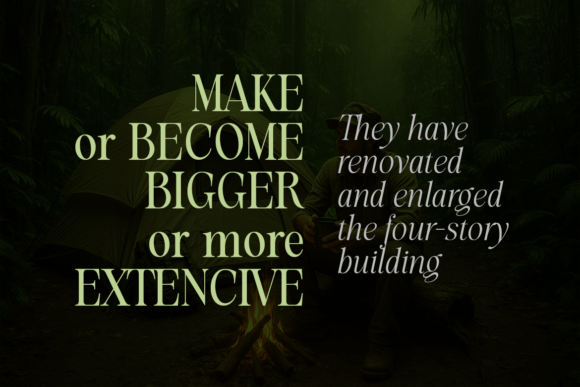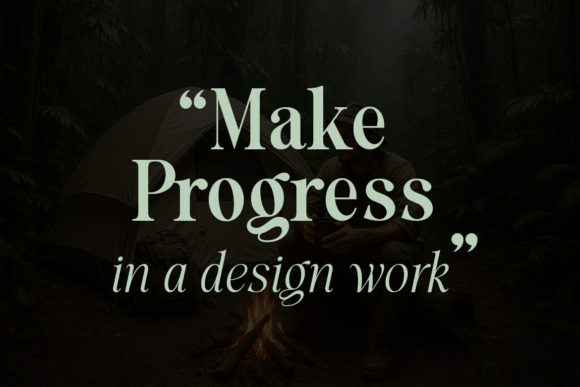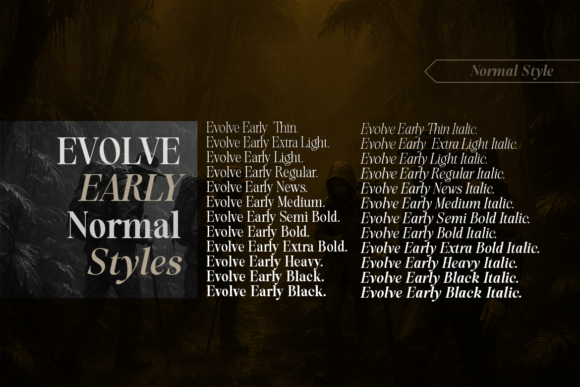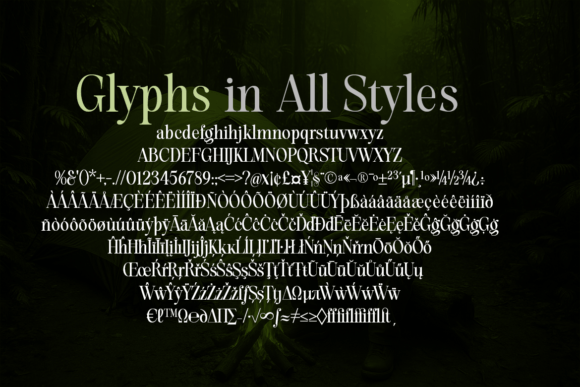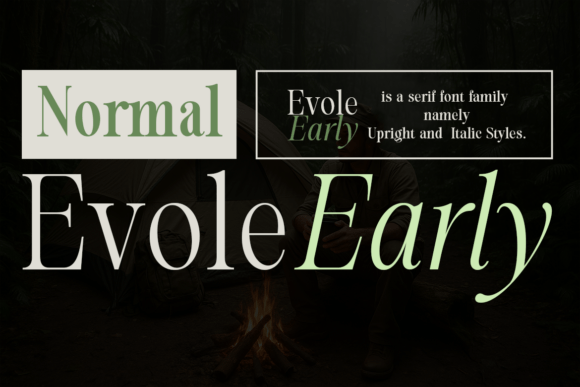
Evolve Early Normal Font: The Perfect Balance of Familiarity and Uniqueness
In the world of typography, finding the perfect font that balances familiarity and uniqueness can be a daunting task. However, with Evolve Early Normal, designers can rest assured that they have found a versatile and elegant font that meets their creative needs. This bold and expressive serif family font has been making waves in the design industry, adorning the pages of top fashion magazines and publications in print media and web pages.
The Characteristics of Evolve Early Normal
Evolve Early Normal boasts a vintage charm that seamlessly supports contemporary designs. This font is characterized by soft flexibility in the glyph character section, making it a standout among other serif fonts. The Normal serif family font consists of 12 upright fonts and 12 italics, bringing the total number of font variations to 24. This extensive range of variations allows designers to experiment with different applications and creative projects.
Perfect for Various Design Needs
Evolve Early Normal is an incredibly versatile font that can be used for a variety of design needs. Its elegant and sophisticated appearance makes it perfect for:
- Branding: Create a lasting impression with Evolve Early Normal’s unique and memorable font style.
- Headlines: Draw attention with the font’s bold and expressive serif style.
- Captions and Paragraphs: Add a touch of elegance to your text with Evolve Early Normal’s readable and beautiful font.
- Posters: Make a statement with the font’s vintage charm and flexibility.
Why Choose Evolve Early Normal?
So, why should designers choose Evolve Early Normal over other fonts? Here are a few compelling reasons:
- Perfect Balance: Evolve Early Normal strikes the perfect balance between familiarity and uniqueness, making it an excellent choice for designers.
- Flexibility: With 24 font variations, designers can experiment with different applications and creative projects.
- Readability: Evolve Early Normal is designed to be readable and beautiful, making it perfect for body text and captions.
- Elegance: The font’s vintage charm and sophisticated appearance make it an excellent choice for high-end designs.
Tips for Using Evolve Early Normal
To get the most out of Evolve Early Normal, here are a few tips for designers:
- Experiment with Font Variations: Try out different font variations to find the perfect fit for your design project.
- Pair with Other Fonts: Pair Evolve Early Normal with other fonts to create a unique and visually appealing design.
- Use for Headlines and Body Text: Use Evolve Early Normal for both headlines and body text to create a cohesive and elegant design.
In conclusion, Evolve Early Normal is an exceptional font that offers the perfect balance of familiarity and uniqueness. Its elegant and sophisticated appearance, flexibility, and readability make it an excellent choice for designers and crafters. Whether you’re working on a branding project, creating a magazine, or designing a poster, Evolve Early Normal is sure to impress. So, why not give it a try and experience the power of this amazing font for yourself?